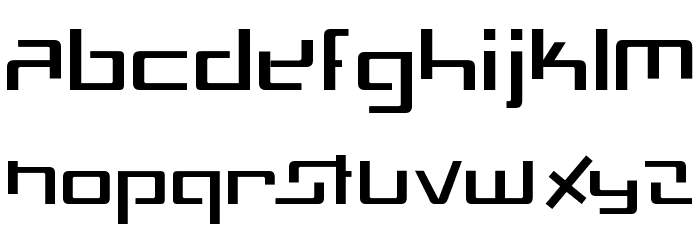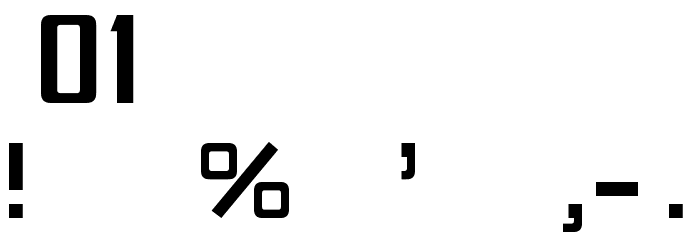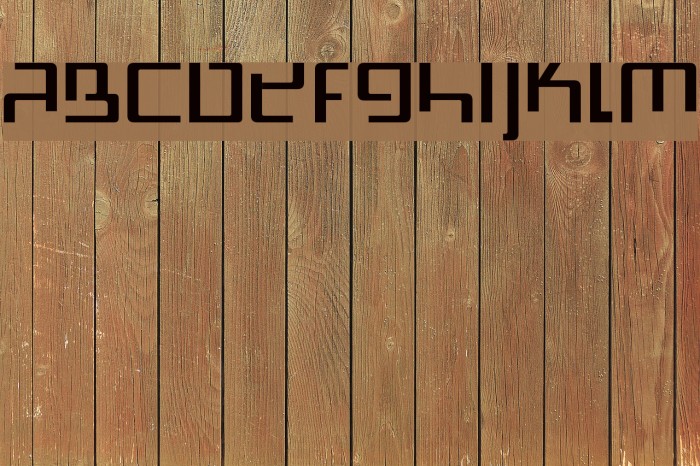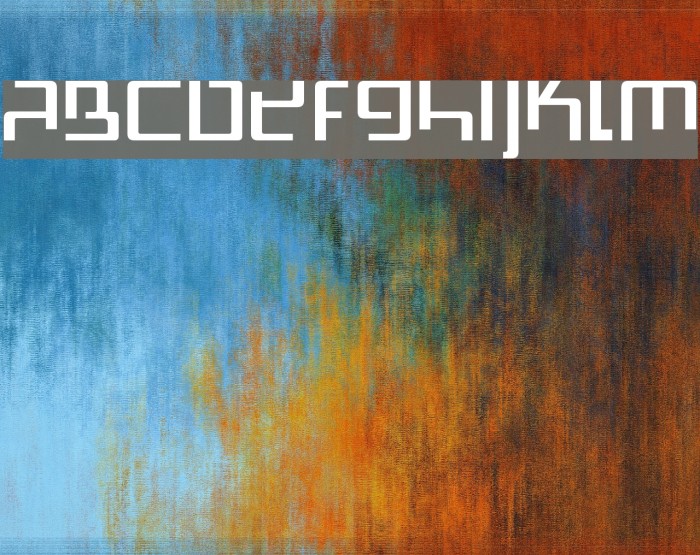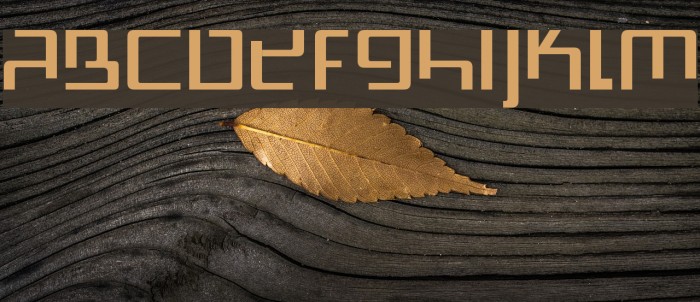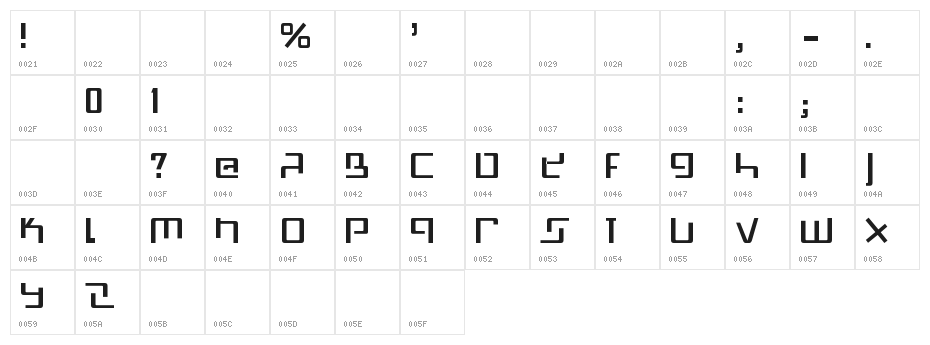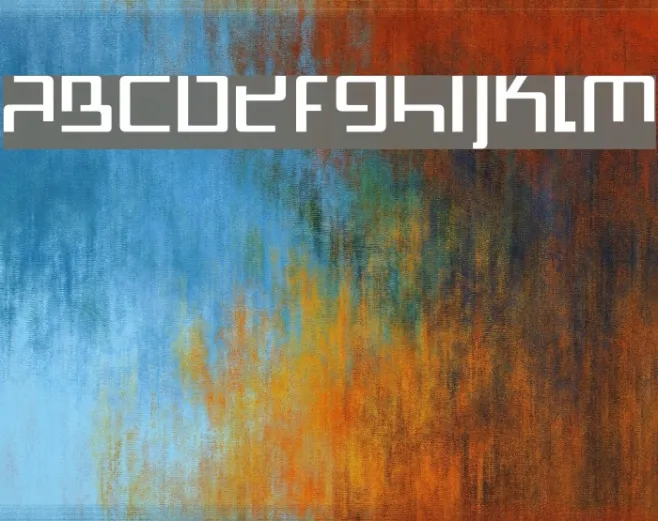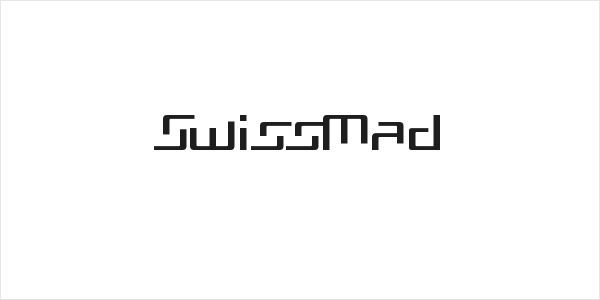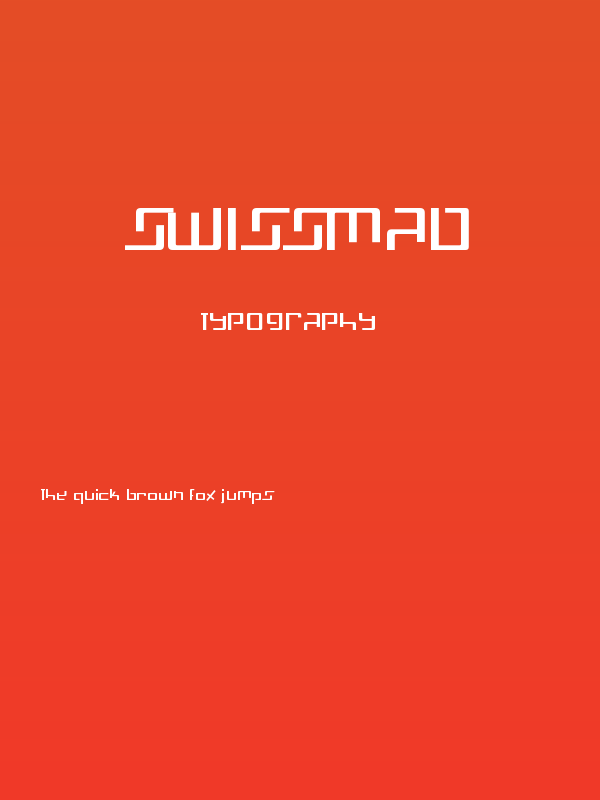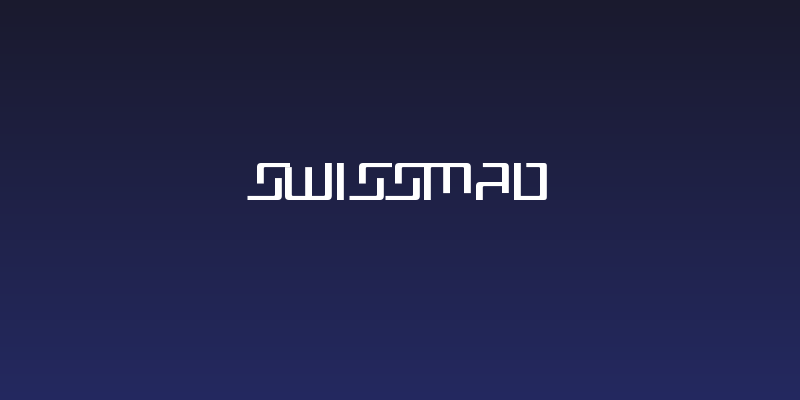
SwissMad Font
This font features a modern, geometric design with a distinct futuristic flair. Each character is crafted with precision, showcasing clean lines and sharp angles. The uppercase and lowercase letters maintain a consistent structure, emphasizing a uniform appearance. The numerals and special characters are designed to complement the alphabet, enhancing the overall cohesive look. This font's unique style is characterized by its bold, angular shapes and minimalistic approach, making it stand out in any design project.
A modern, geometric font with a futuristic and minimalistic design.
- Proposed Projects: Ideal for technology branding, sci-fi themed projects, modern advertising, and digital interfaces.
- Use Case: Headlines, Logos, Digital interfaces